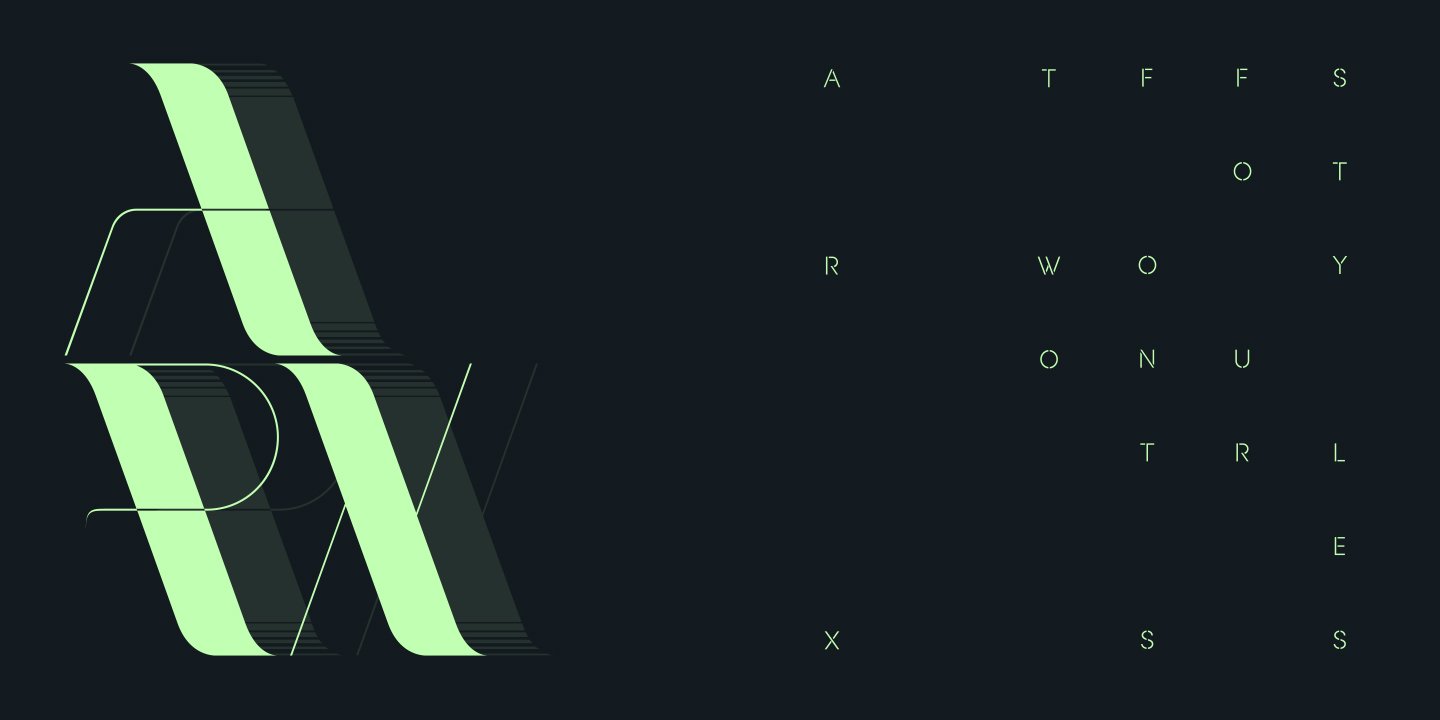
Please note that while you can download Arx Font for free for testing purposes, you are required to purchase a license for commercial use. This modern, geometric, and highly versatile typeface is an exceptional choice for a broad spectrum of contemporary design projects. It's perfectly suited for tech branding, sleek website interfaces, minimalist editorial layouts, impactful app designs, innovative corporate communications, and any application that requires a clean, precise, and forward-thinking aesthetic. Its sharp forms and balanced proportions deliver a truly professional look.
What makes Arx Font so exciting is its remarkable ability to blend geometric precision with a friendly, approachable feel. It often features clean lines, open counters, and a consistent rhythm that ensures excellent readability across various mediums and sizes. This font speaks to efficiency and modernity, yet it maintains a subtle warmth that prevents it from feeling sterile. It’s a typeface that embodies contemporary design principles, making your content feel current, organized, and effortlessly stylish. Arx Font is perfect for conveying innovation and clarity in a sophisticated manner.
The Arx Font family is typically designed to be comprehensive and highly functional, providing designers with extensive flexibility. You can often find a wide array of weights, ranging from a delicate Thin or Light to a robust Bold or Black, along with corresponding italic styles to complement each weight. Some versions may also include condensed or expanded options, as well as an extended character set and OpenType features, allowing for precise typographic control and creative expression across complex projects. Discover the streamlined elegance that Arx Font Free Download can bring to your next design.